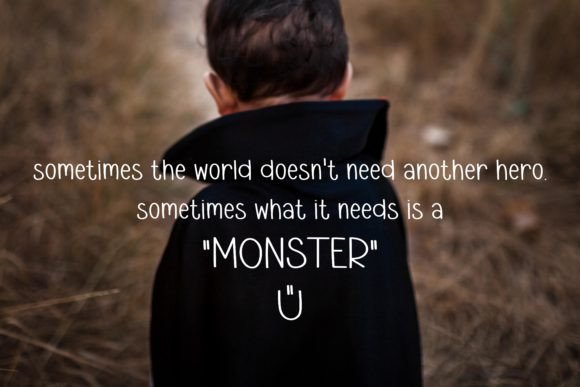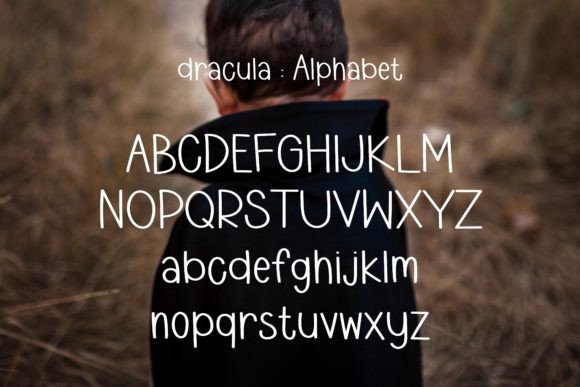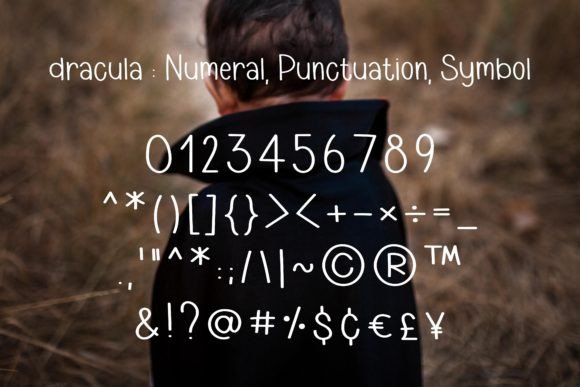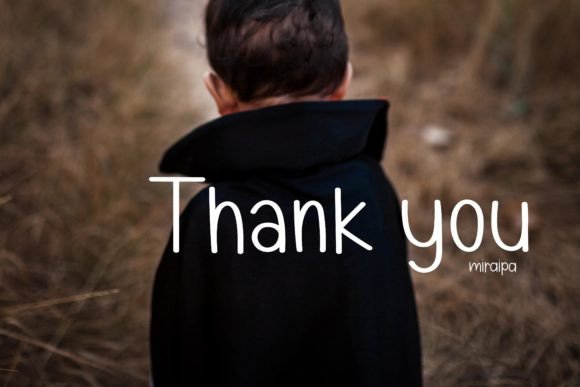
The Ultimate Guide to Dracula Font: A Friendly and Cute Sans Serif Style
I’ll never forget the time I was working on a Halloween-themed project for a client, and I just couldn’t find the right font to match the playful and spooky vibe. That was until I stumbled upon the Dracula font. At first, I thought the name might be a bit misleading – I mean, Dracula is the iconic vampire, after all! But trust me, this font is far from spooky. It’s actually designed in a friendly and cute Sans serif style that’s perfect for a wide range of projects.
An Honest Review of Dracula Font
- ✨ Friendly and approachable vibe that’s perfect for kid-friendly designs
- 🎉 Available in various weights, making it versatile for different design applications
- 👍 Works well for both digital and print designs
While I absolutely love the Dracula font, there are a few things to keep in mind:
- ⚠️ Limited language support – it’s best suited for English or similar languages
- 🤔 Some users might find the font a bit too playful for very formal designs
The Backstory Behind Dracula Font
While I couldn’t find any information on the exact designer behind Dracula font, I like to imagine that it was created by a team of designers who wanted to challenge the traditional associations with the name “Dracula.” They set out to create a font that’s friendly, approachable, and perfect for designs that need a playful touch. And I think they succeeded!
Q: What type of projects is Dracula font best suited for?
A: Dracula font is perfect for a wide range of projects, including back-to-school designs, wedding invitations, party decorations, Halloween and Christmas designs, posters, blogs, clothing, child-related designs, greeting cards, and social media posts.
Q: Is Dracula font available in different weights?
A: Yes, Dracula font is available in various weights, making it versatile for different design applications.
Q: Can I use Dracula font for both digital and print designs?
A: Absolutely! Dracula font works well for both digital and print designs, making it a great addition to your font library.